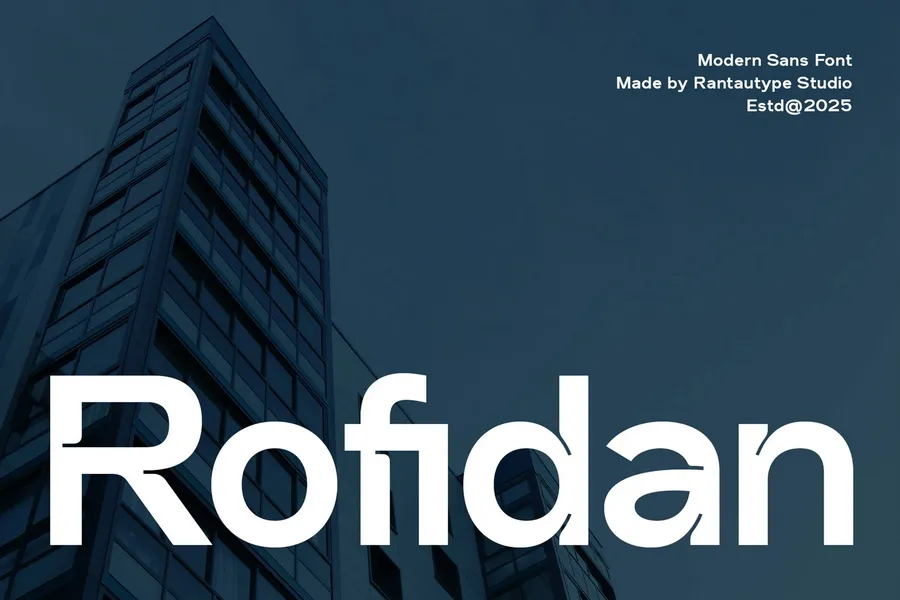
Rofidan Modern Sans Font
Rofidan is sans font with unique accent in each characte and balance proportions. Rofidan is a perfectly choice for any creative endeavor, chic, lifestyle design such as logotype, advertisements, watermark on photography, stationery, branding project, display and magazine, invitation, corporate brand, product design, label, business project and many other project with modern touch.